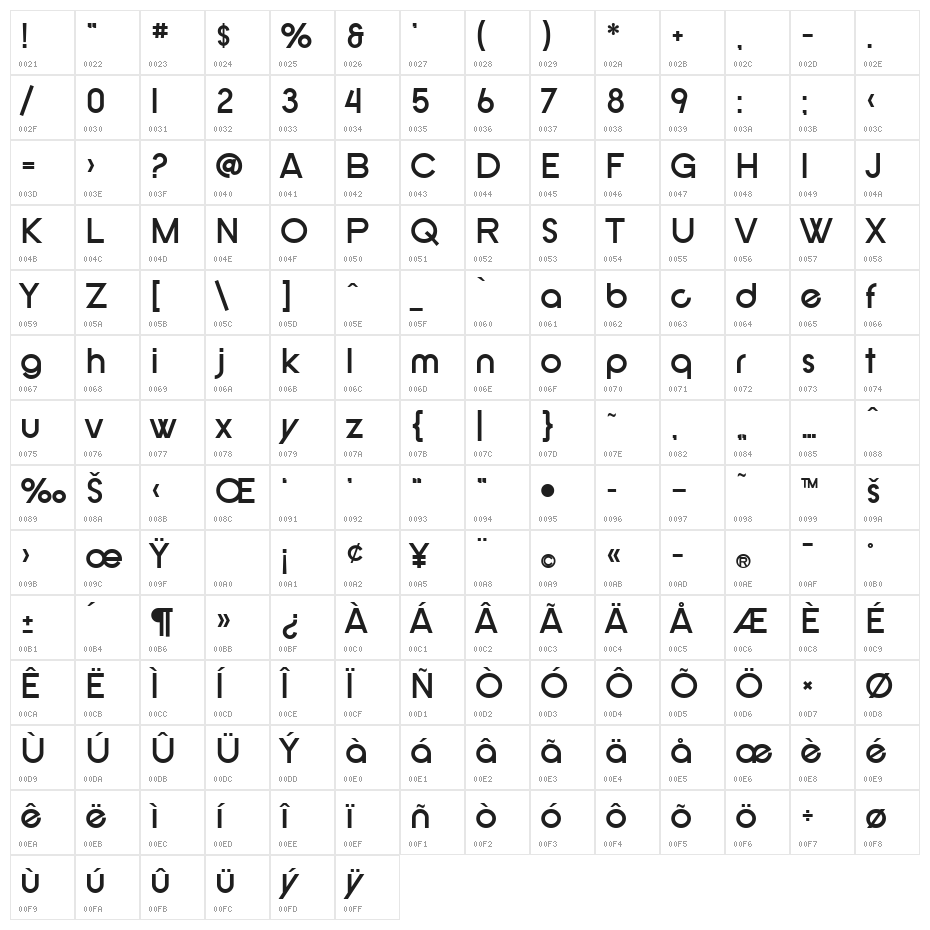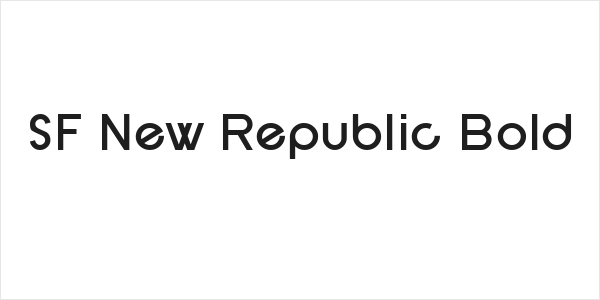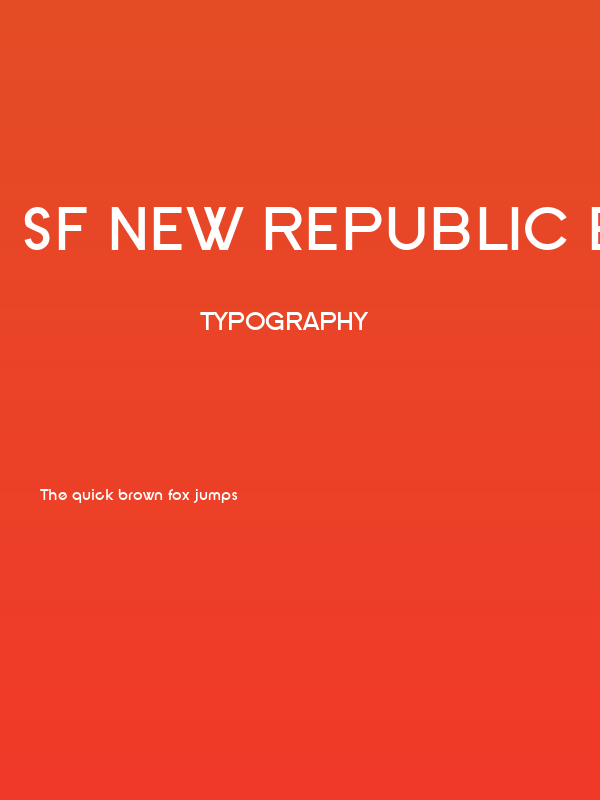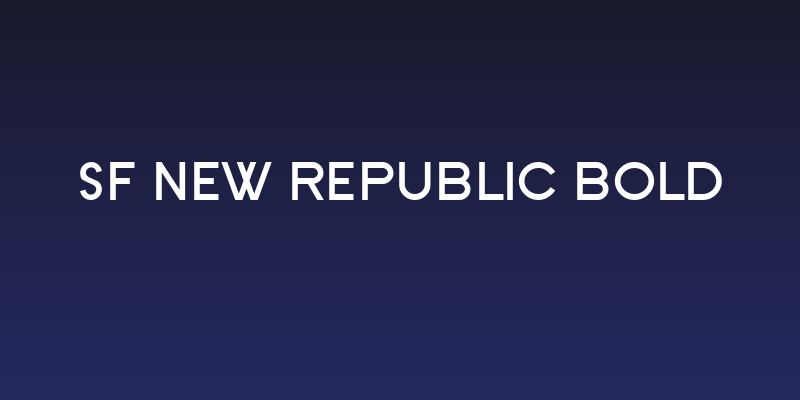
SF New Republic Bold Font
SF New Republic Bold Description
This font features a bold and modern sans-serif style with clean, geometric lines and uniform stroke widths. The uppercase and lowercase letters maintain a consistent height and width, creating a balanced and harmonious appearance. The numerals are clear and easy to read, while the special characters are well-defined and integrate seamlessly with the overall design. The font's simplicity and clarity make it highly versatile, suitable for a wide range of applications. Its bold weight ensures strong visibility and impact, making it ideal for headlines and branding.
| Proposed Projects | Ideal for branding, advertising, headlines, and digital media projects. |